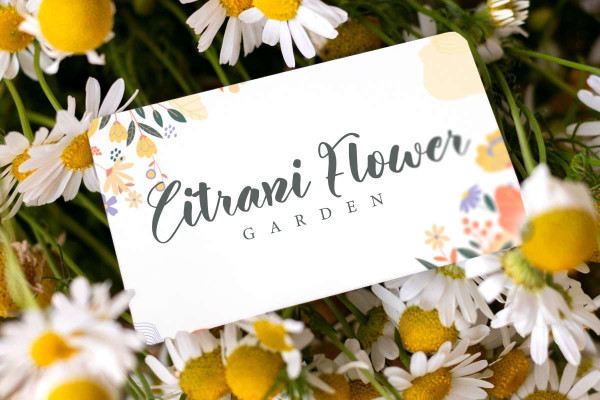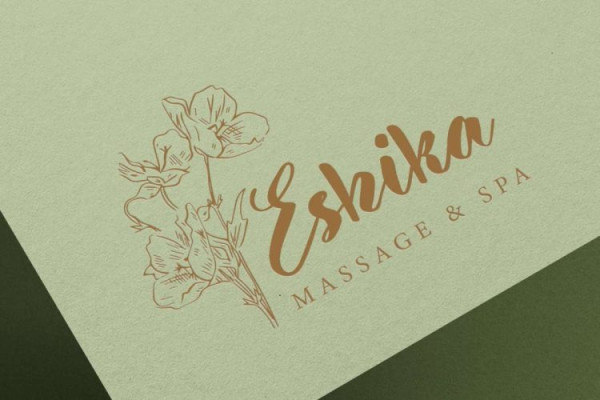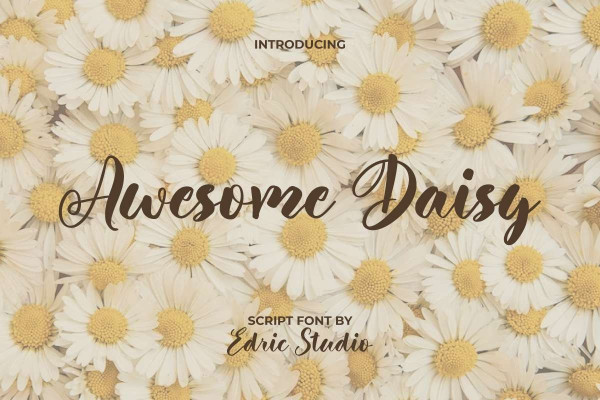
Awesome Daisy Font
Awesome Daisy Font is a lovely script font inspired by the beautiful daisy flower. The daisy represents purity, simplicity and other good things, similarly this font is suitable for any industry, such as author, bakery, beauty clinic, coffee shop, cosmetic, event organizer, fashion, florist, furniture, homeware, interior designers, printing, publishing, restaurant, skincare, spa, and many more.
Awesome Daisy Font comes with a full set of Uppercase and Lowercase Basic Characters, Number, a large range of Punctuation and Symbol. It has a stunning characters set, perfectly managed with well spaced and kerning. Awesome Daisy Font will be great for any projects (with extended license) including : brand logo, brochure, cover, greeting card, invitation, label, menu, product packaging, quote, signage, screen print, stationery, sticker, title, watermark, website, etc.